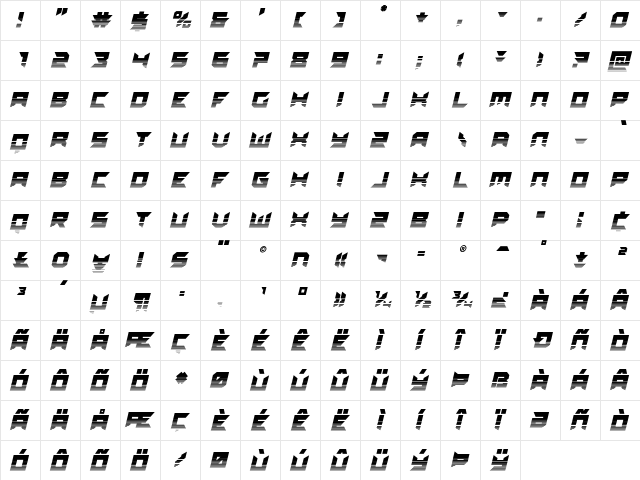
Dagger Dancer Twotone Italic Regular
Design Context for Dagger Dancer Twotone Italic Typeface
Dagger Dancer Twotone Italic is a composed and adaptable typeface that performs quietly and consistently across a wide range of design contexts. The slanted form adds forward momentum and visual energy.
Pro Tip: Use Dagger Dancer Twotone Italic for emphasis, pull quotes, and subheadings where its slanted energy can add rhythm to the layout.